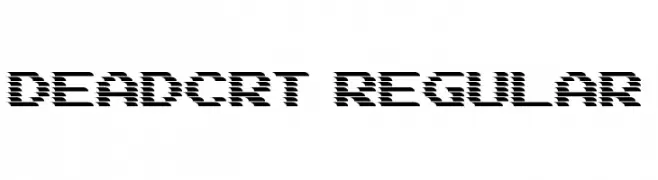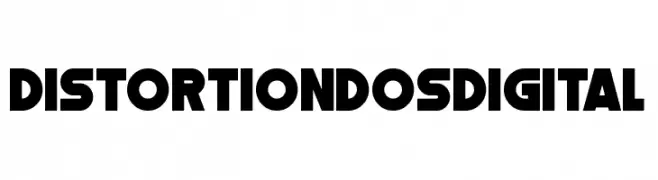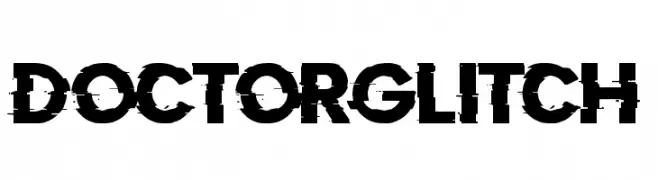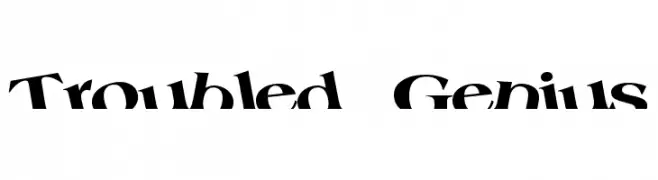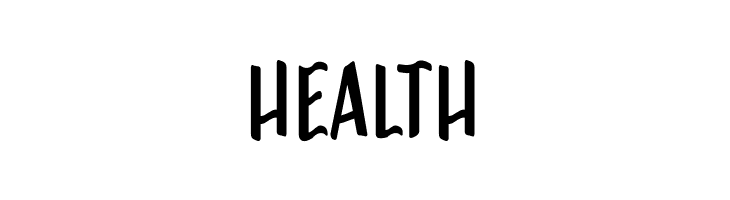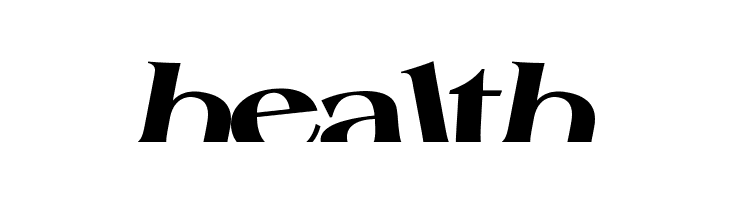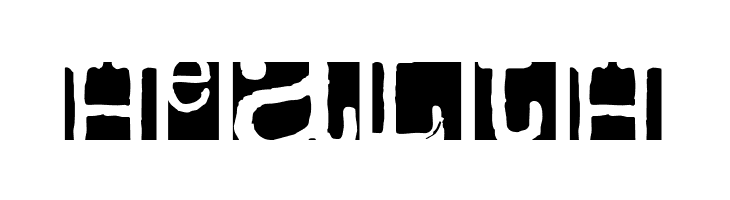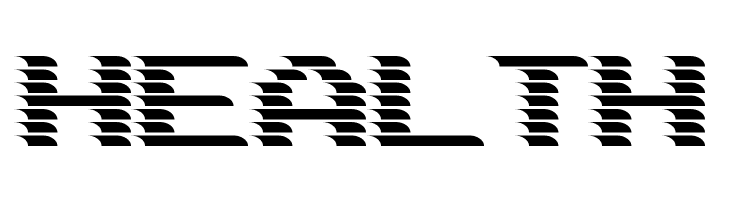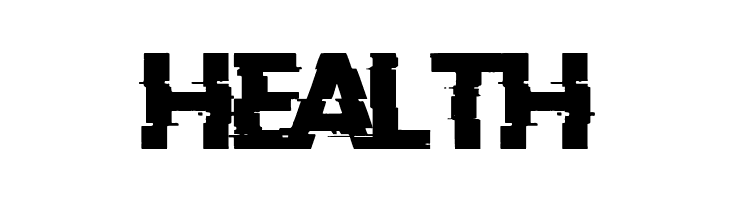
( Fonts by www.lifewithouttaffy.com )
A bold, decorative font with an organic, liquid-like appearance.
( Fonts by Scott Dieznyik - Kejak (formerly Cheops) )
A glitch-inspired font with bold, distorted characters and a digital aesthetic.
( Fonts by Kirk Shelton - www.kirkshelton.com )
A bold, glitch-effect font with a futuristic and dynamic style.
( Fonts by www.fontdiner.com )
A playful, distorted font with quirky, energetic characters.
( Fonts by www.lifewithouttaffy.com )
A bold, distressed font with a dynamic, grunge-like appearance.
( Fonts by ShyFonts )
A bold, distorted font with a playful, chaotic style.
( Fonts by Sacred Nipple - Brode Vosloo )
A distressed, chaotic font with jagged, uneven strokes for an edgy look.
( Fonts by www.fenotype.com )
A distressed, grungy font with a chaotic, textured appearance.
( Fonts by Christopher Hansen )
A distressed, grungy font with chaotic, textured characters.
( Fonts by www.vicfieger.com )
A distressed, grungy font with chaotic, worn letterforms.
A highly distorted and blurred font with overlapping characters, creating an abstract visual effect.
A playful, eclectic font with a cut-out, ransom note style.
( Fonts by TarmSaft Font Factory - http://www.aska.nu/tarmsaft/ )
A decorative, fragmented font with abstract, distorted letterforms.
An abstract, glitch-inspired font with fragmented, pixelated characters.
Experimental, abstract font using lines and waves instead of standard glyphs.
A bold, glitch-style font with an italic slant, perfect for tech-themed designs.
( Fonts by www.fontalicious.com )
A dynamic and playful font with stretched, elongated characters.
( Fonts by www.haroldsfonts.com )
A bold, glitch-effect font with a modern, digital aesthetic.
( Fonts by http://perso.calixo.net/~uzim/ )
A chaotic, jagged font with a grunge-inspired aesthetic.
( Fonts by David Kerkhoff - www.hanodedphotography.com )
A chaotic, distressed font with jagged strokes and splattered ink effects.
( - www.egotaco.com )
A bold, glitch-inspired font with a modern, distressed look.
( Fonts by weknow - Wino S Kadir )
A modern, textured font with a glitch-like, dynamic appearance.
( Fonts by Chank Co. - www.chank.com )
A bold, distressed font with a grunge, vintage style.
( Fonts by Alex Tomlinson - Skyhaven Fonts - shfonts.com )
A bold, distorted font with a glitch effect, perfect for modern and edgy designs.
A bold, distressed font with a grungy, chaotic aesthetic.